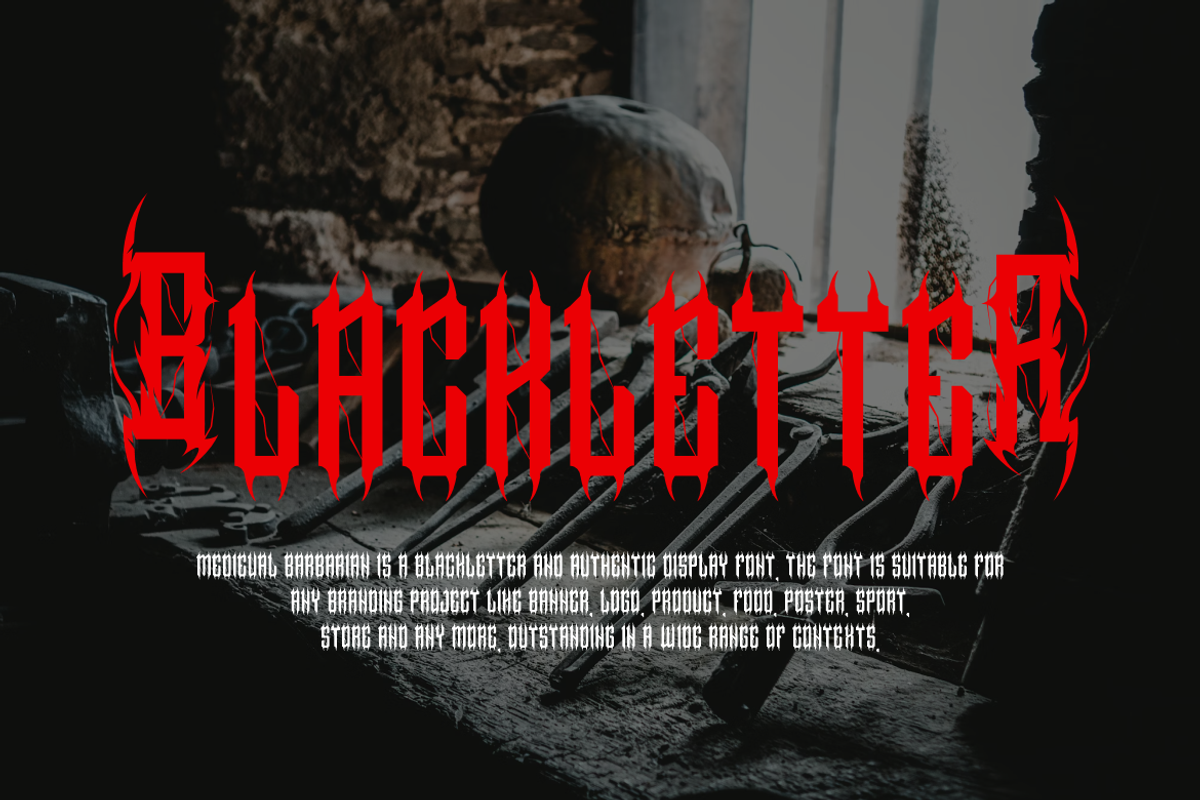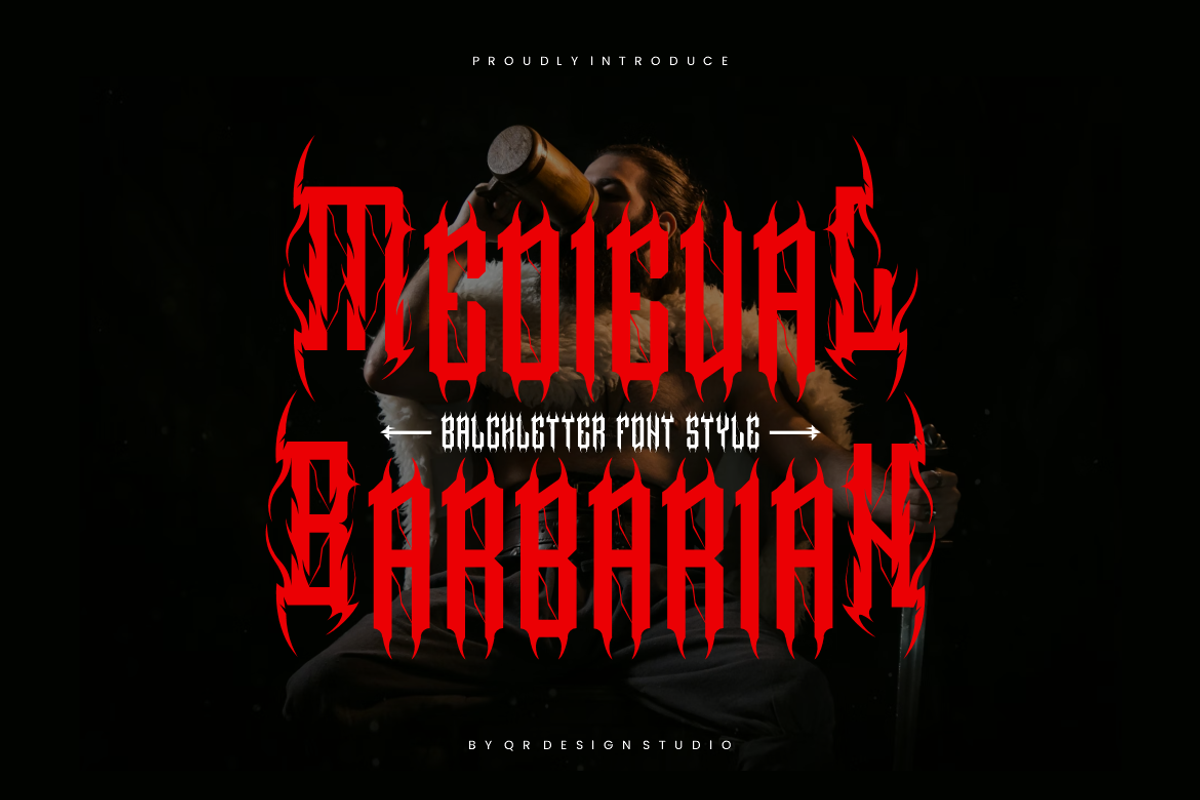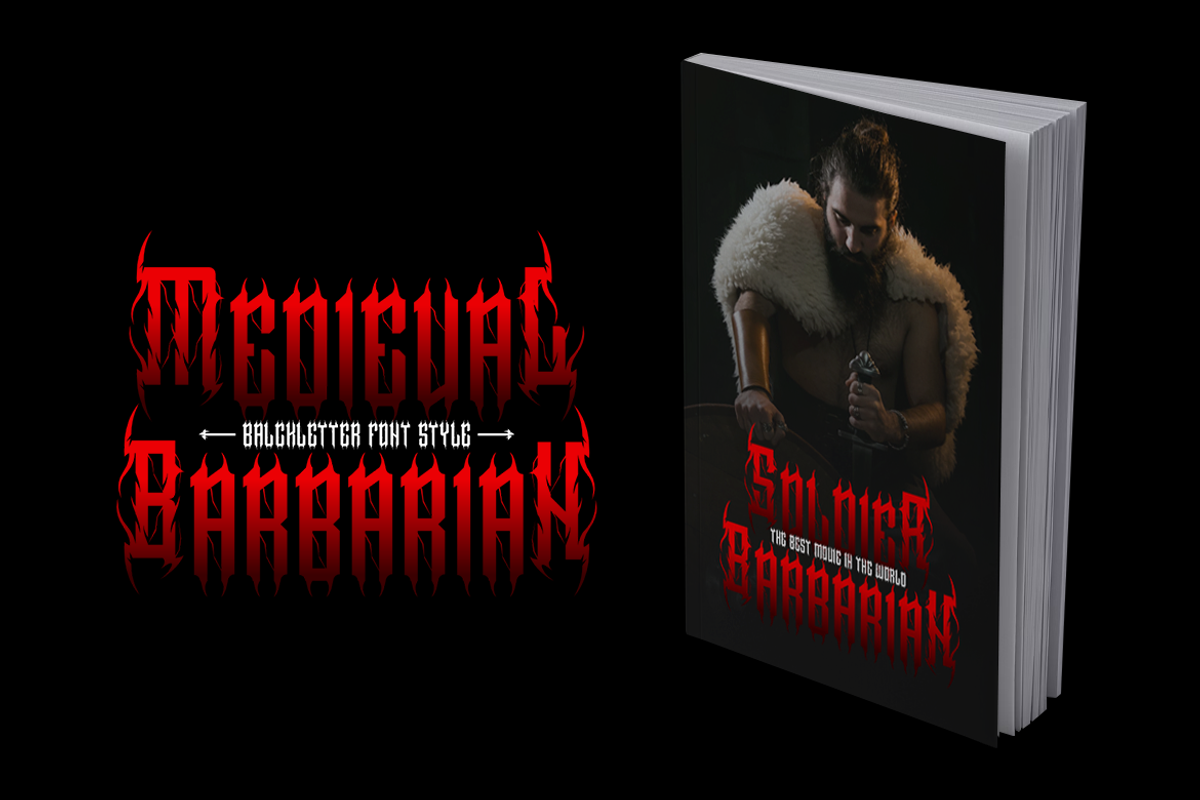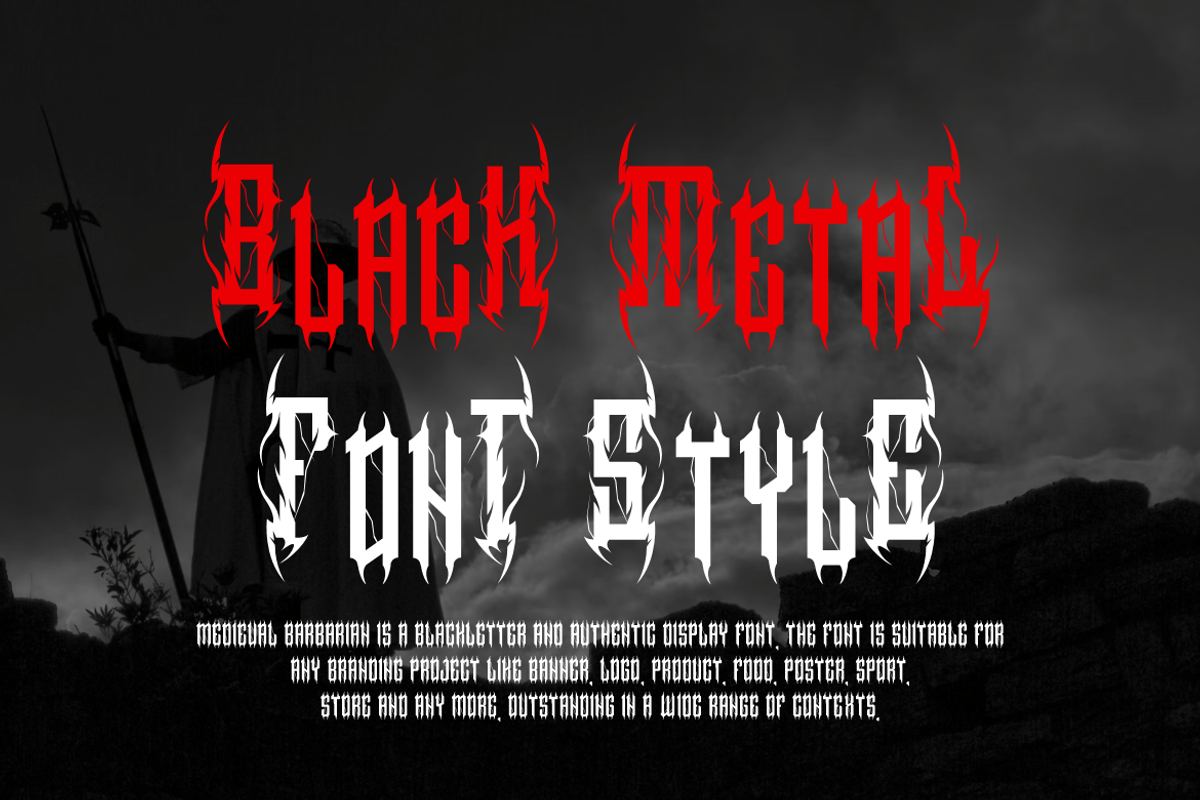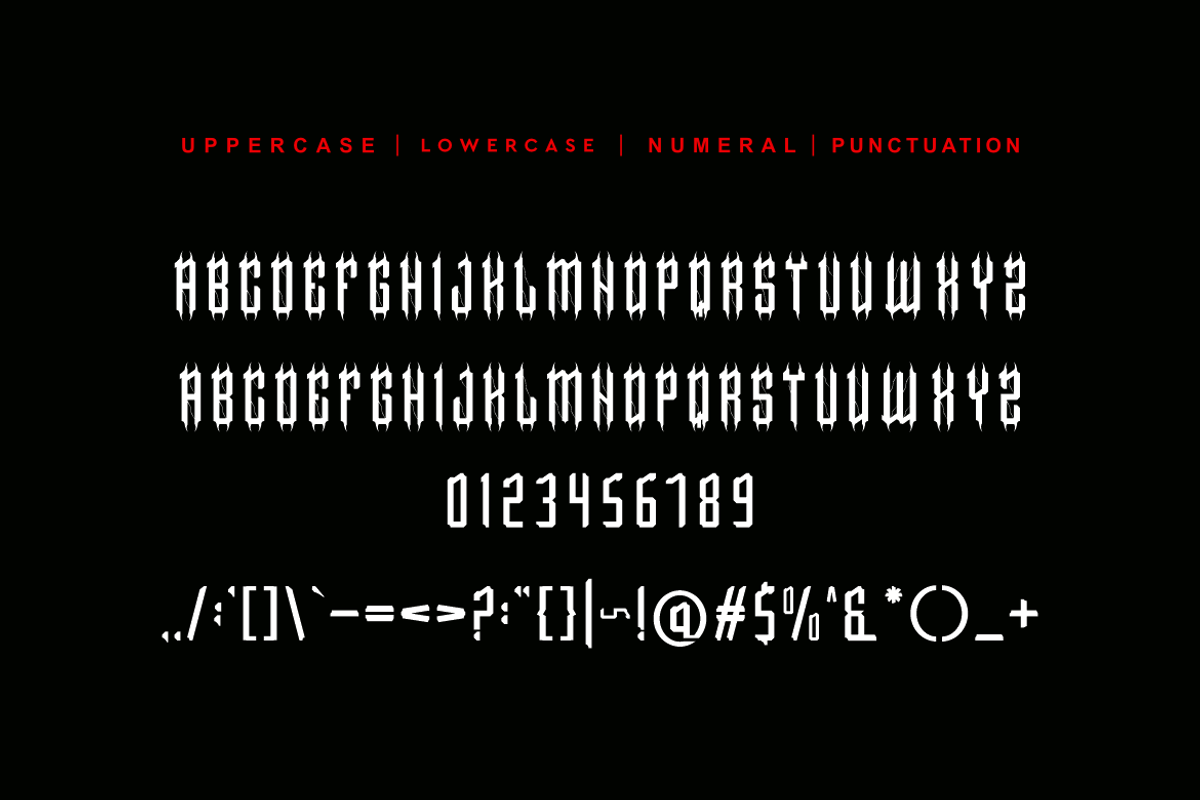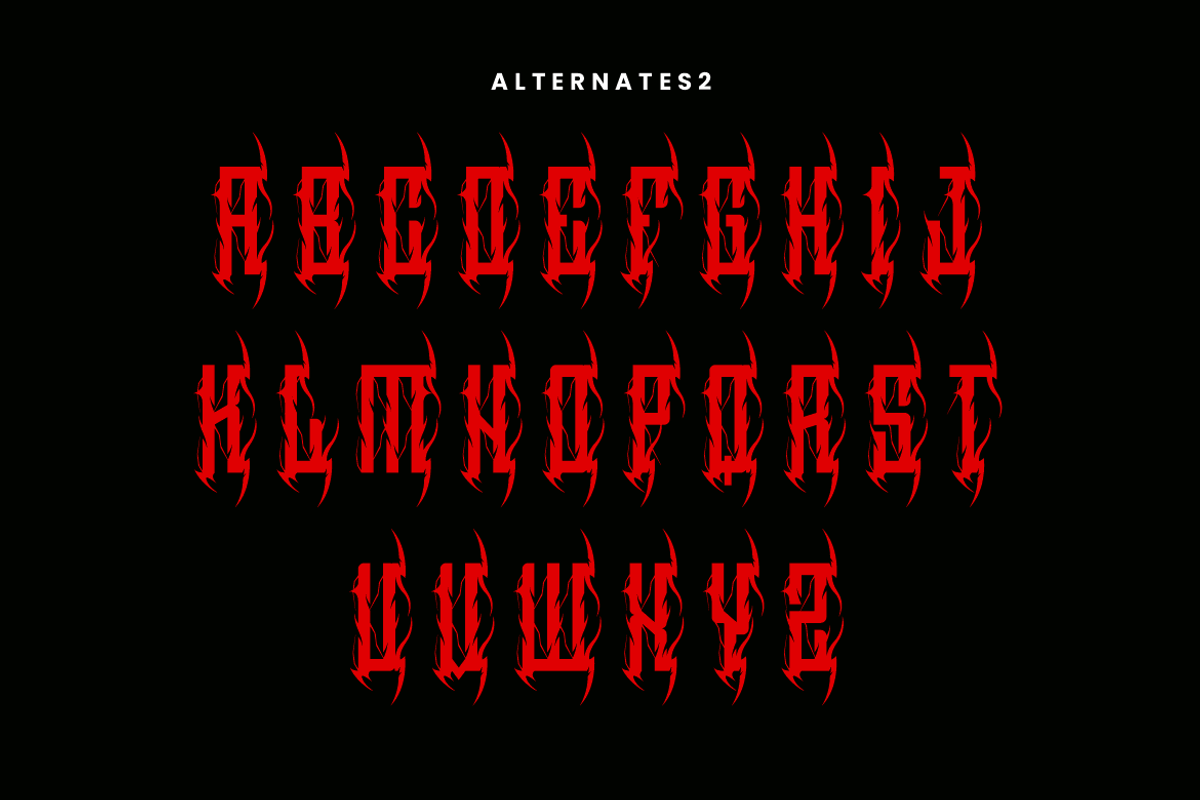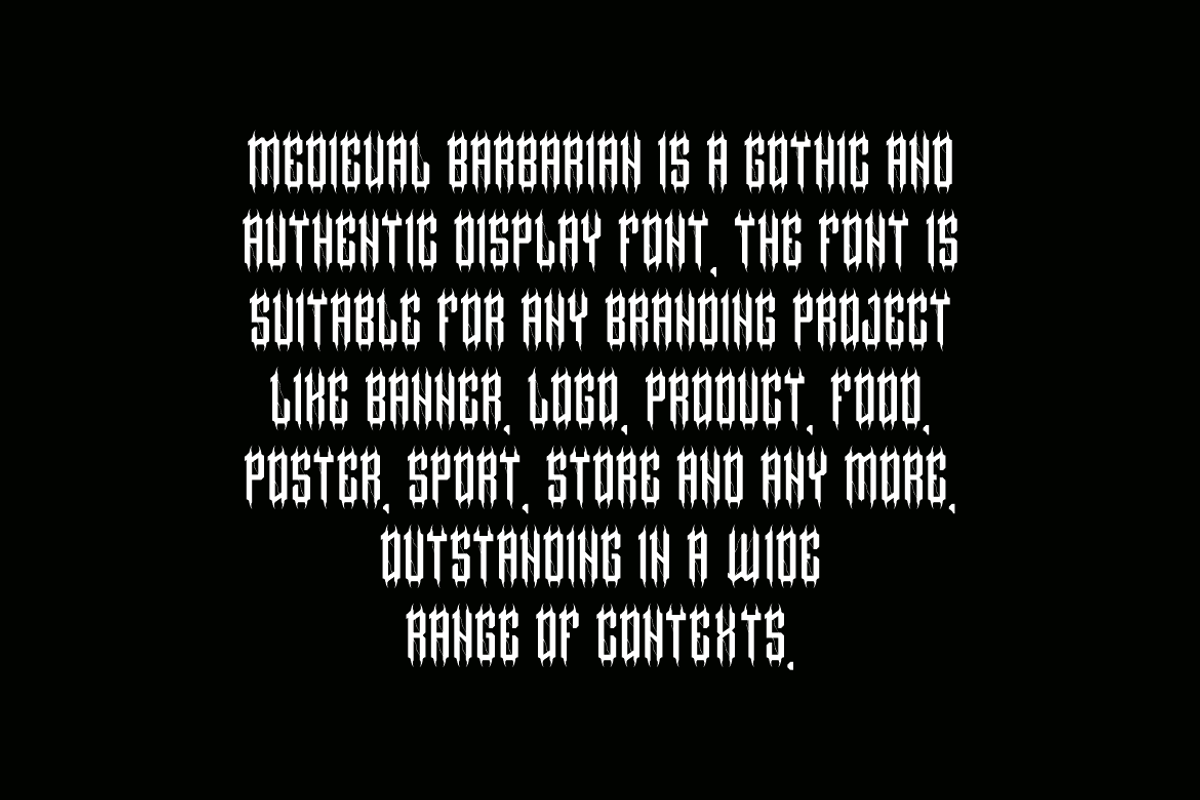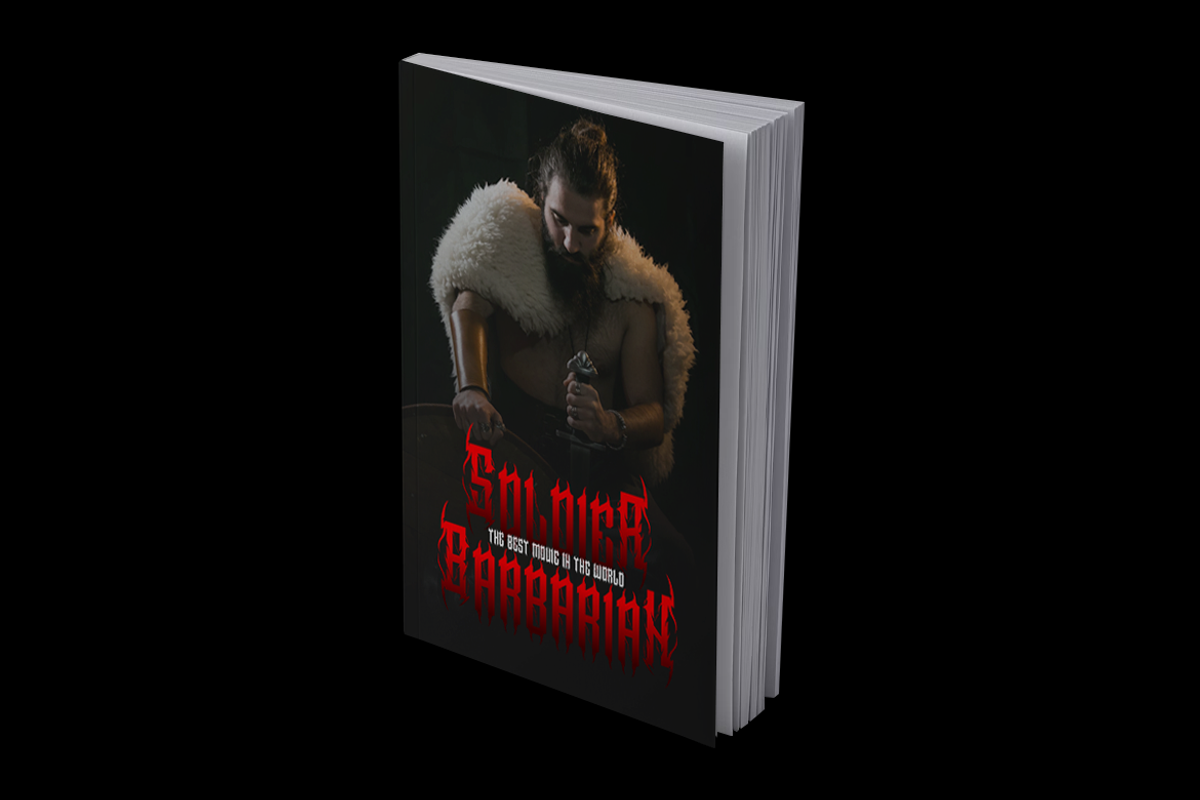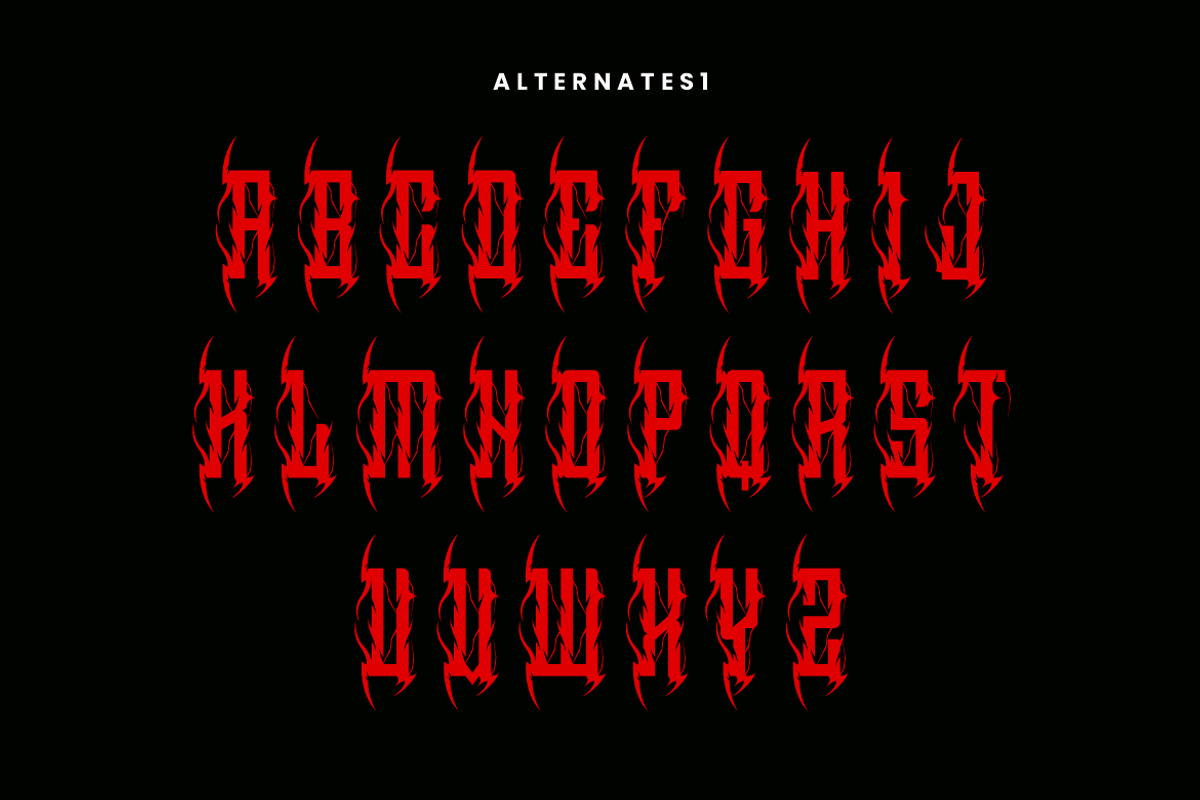
Medieval Barbarian-Blackletter Font
Medieval Barbarian - Gothic & Blackletter Font is a decorative and authentic display font. The font is suitable for any branding project like poster, logo, sport, and many more. Outstanding in a wide range of contexts.